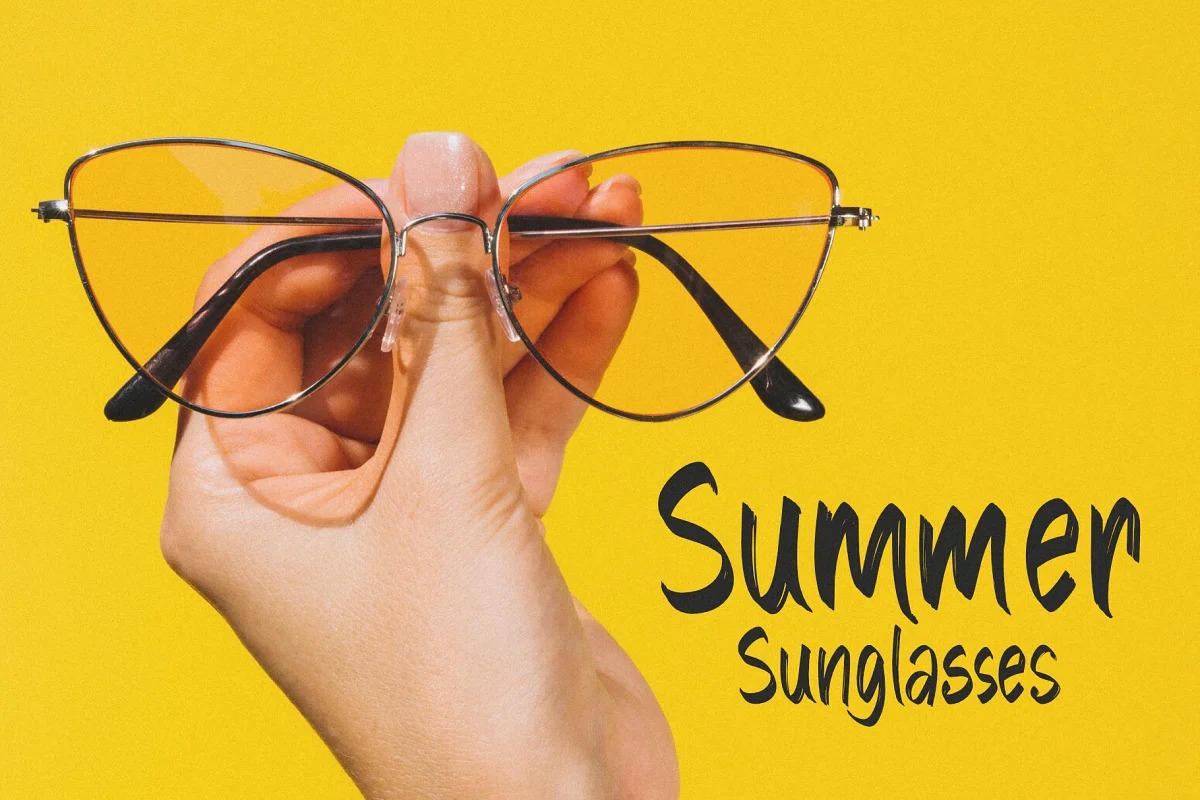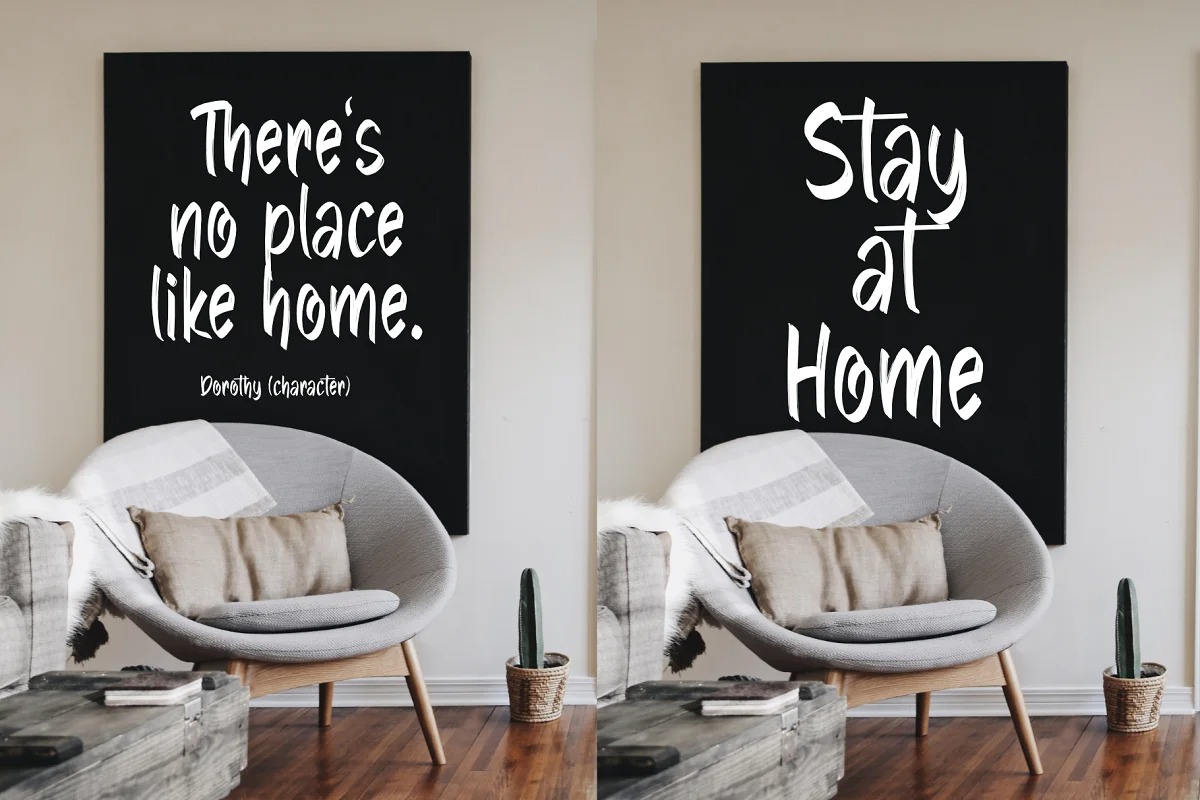
Strange Agent Font
Strange Agent Brush Font
It’s a textured handwritten font, a modern approach to design, naturally handcrafted. Strange Agent perfect for designs, logos, social media, brands, content, advertisements, product designs, quotes, product packaging, headers, posters, merchandise, and other designs.